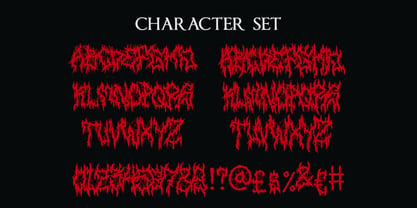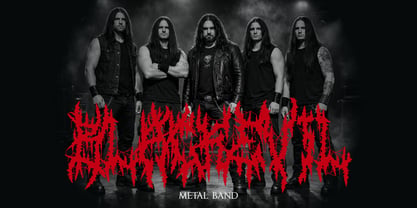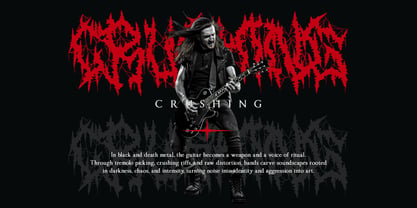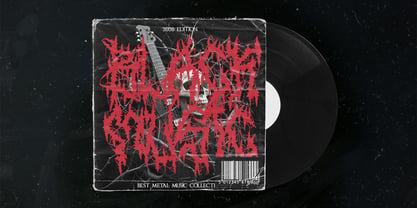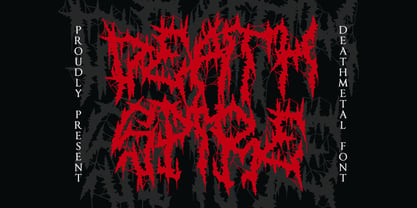
Death Spire
The Death Spire Font Family was designed by Yesie Erma Yunita and published by Shanaf. Death Spire contains 1 styles. More about this family
Death Spire Brutal Deathmetal Font features chaotic, highly detailed letterforms with sharp, thorn like extensions. The strokes appear irregular and aggressive, forming dense and tangled silhouettes. Vertical structures stretch unevenly, creating a wild and unstable rhythm. The weight feels heavy overall, yet many terminals taper into thin, needle sharp ends. Organic spikes and branch like fractures dominate each character shape. Counters are tight and sometimes partially closed, increasing visual intensity. The texture looks raw and eroded, adding a violent handcrafted feel. Death Spire Brutal Deathmetal Font embraces the aesthetics of brutal deathmetal and blackmetal culture. The composition favors complex outlines that command attention in large sizes. This structure supports extreme wordmarks that feel ritualistic and uncompromising. The style fits brutal deathmetal, blackmetal, grindcore, and extreme underground music themes. This font works perfectly for metal band logos, album titles, concert posters, music festival branding, and merchandise graphics. It strengthens visual identity for record labels, music studios, horror media projects, and dark art collectives. The aggressive form language communicates chaos, darkness, and sonic violence. It performs best in logos, branding systems, headlines, posters, album covers, book covers, magazine titles, stickers, promotional artwork, and film titles. The dense structure builds strong recognition within extreme music communities. Multilingual character support expands usage for international bands. Death Spire Brutal Deathmetal Font helps metal projects establish a distinct and intimidating brand presence.